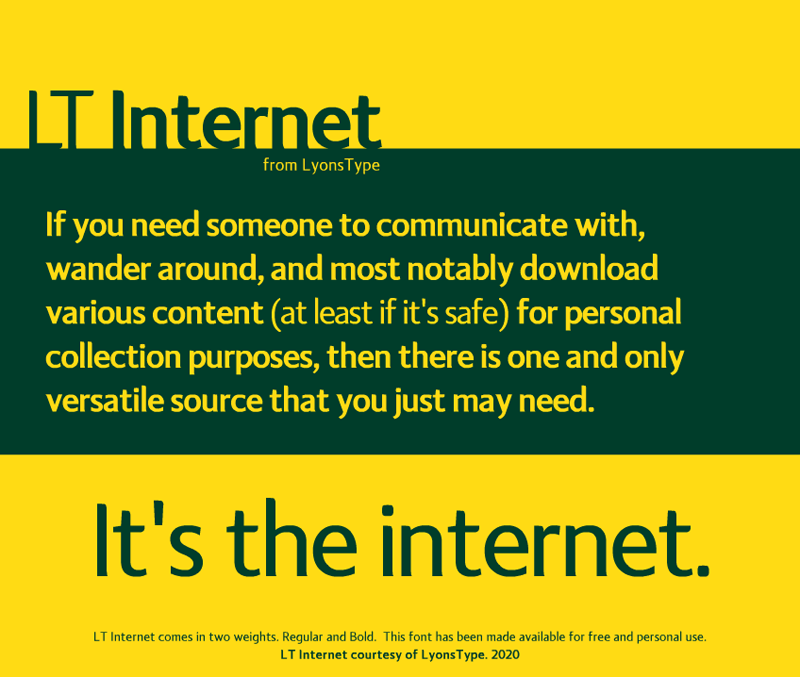
Font name: | LT Internet |
Author: | Daniel Lyons |
Note by Daniel Lyons | |
I've been deciding to make yet another humanist font that centers around the obsessive usage of the internet since clearly everybody's addicted to it. We all use it for communication, discovering what's hot, etc. To put it simply, this font dedicates how addicted we are to the internet. You're welcome. - Lyons |